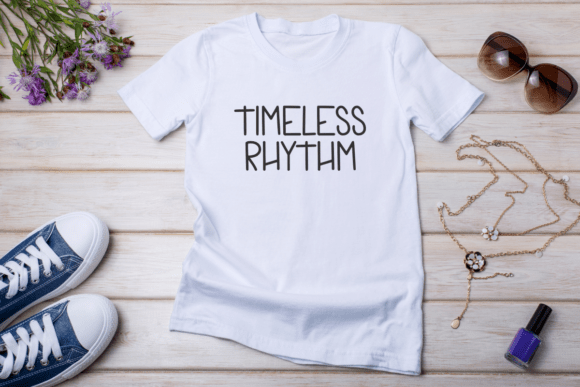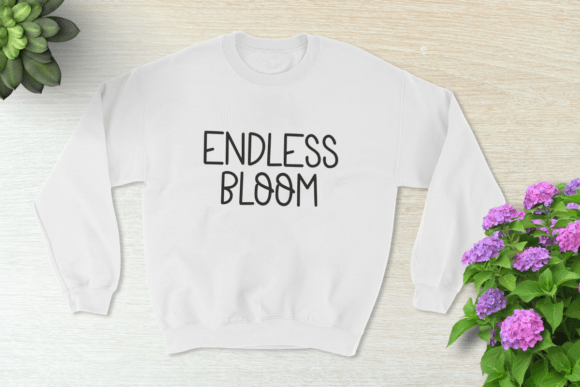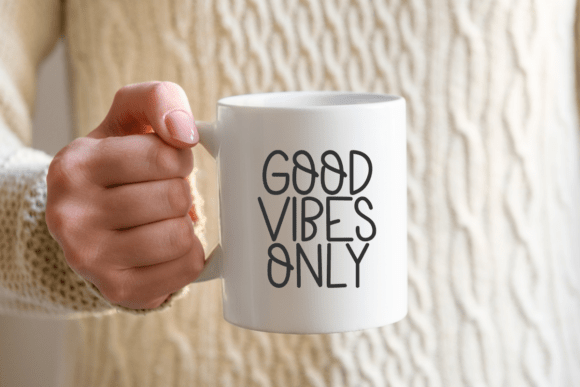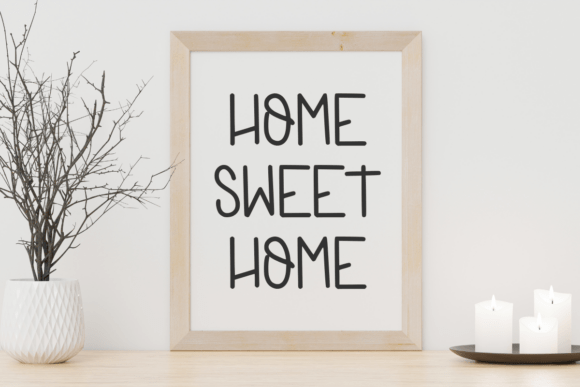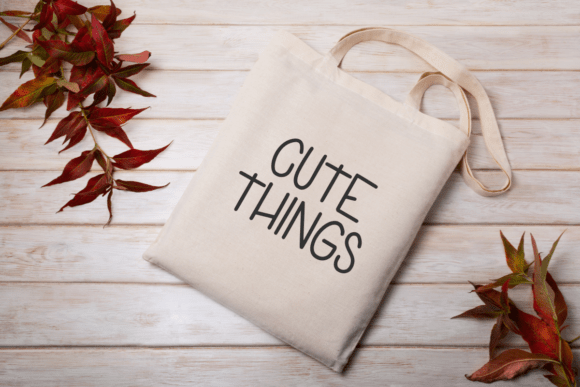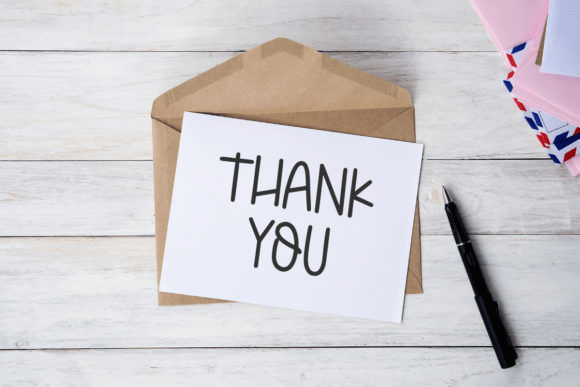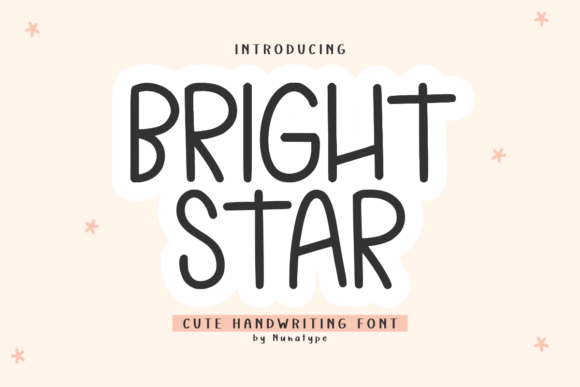
The Bright Star Font: A Crafter’s Dream Come True
I’ll never forget the moment I stumbled upon the Bright Star font while working on a custom craft project for my niece’s birthday. I was on a mission to create the perfect set of handmade stickers and coloring pages, but my font options were falling flat. That’s when I discovered Bright Star – a cute sans serif handwriting font that instantly captured my heart with its soft, friendly, and natural look. If you’re a fellow crafter, designer, or creative hobbyist looking for a font that brings a warm, handcrafted feeling to your projects, you’re in the right place!
- ✅ Adorable and Playful: Bright Star has a unique charm that makes it perfect for kids’ projects, stickers, and coloring pages.
- ✅ Easy to Read: The font’s simple strokes and smooth curves make it easy on the eyes, even for younger readers.
- ✅ Cricut and Silhouette Friendly: Its clean design cuts beautifully, making it a great choice for crafters who love working with cutting machines.
- ✅ Versatile: Use it for quotes, greeting cards, labels, worksheets, bullet journals, scrapbooks, and more!
- ⚠️ May not be suitable for very formal projects: Bright Star’s playful nature makes it less ideal for formal or professional designs.
- ⚠️ Limited availability of special characters: While it covers the basics, you might find that it lacks some advanced special characters.
A Practical Guide: Using Bright Star Font in Your Favorite Design Tools
Using Bright Star in Canva
Using Bright Star in Adobe Photoshop or Illustrator
Using Bright Star in Microsoft Word
Exploring Alternatives: Similar Fonts to Bright Star
The Story Behind Bright Star: A Glimpse into Its Design Inspiration
Bright Star was created with the intention of bringing a warm, handcrafted feel to digital designs. The designer aimed to craft a font that felt both approachable and charming, perfect for projects that require a personal touch. Imagine a friendly, handwritten style that feels like it was written with a marker – that’s the magic of Bright Star.
| Author | Nuhatype |
Q: Can I use Bright Star with my Cricut machine?
A: Absolutely! Bright Star cuts beautifully and is a great choice for Cricut and Silhouette users.
Q: Does Bright Star support OpenType features?
A: Yes, Bright Star supports OpenType features, allowing you to access different glyphs and stylistic alternates to customize your text.
Q: Is Bright Star available in different weights or styles?
A: Currently, Bright Star comes in a single style, but its simplicity and versatility make it adaptable for various design needs.